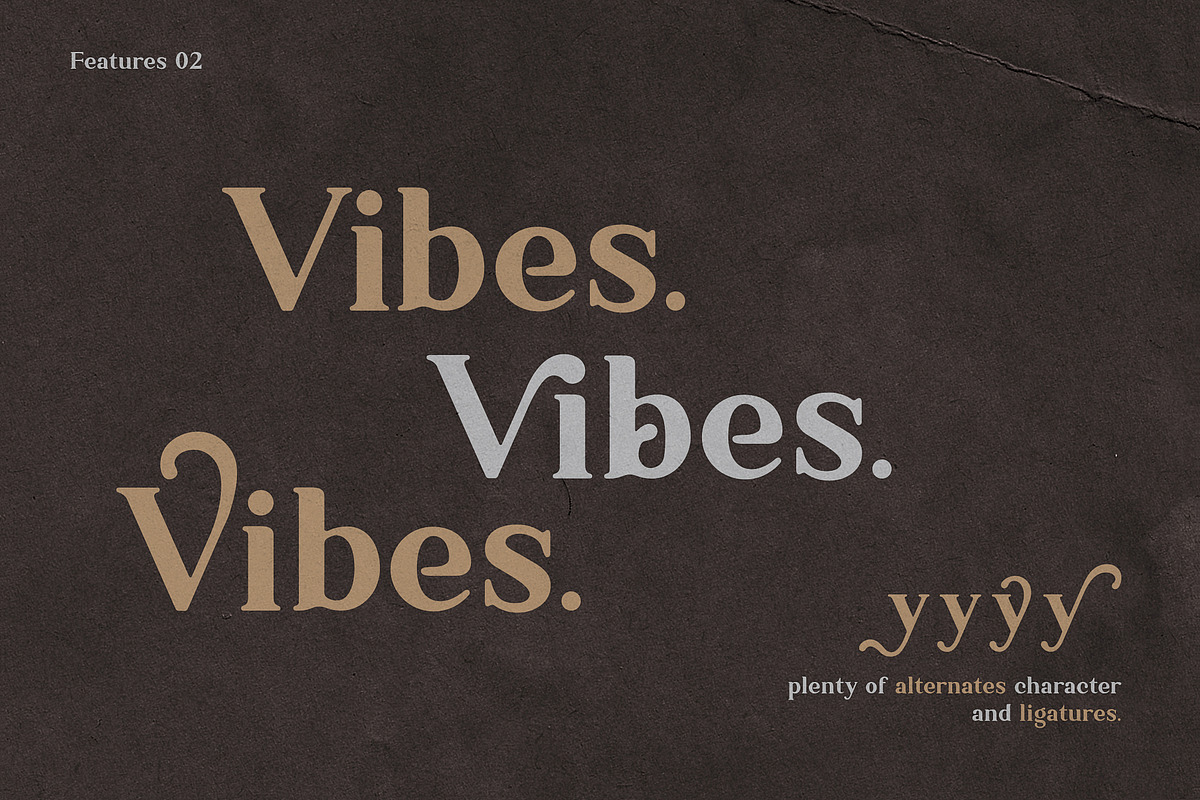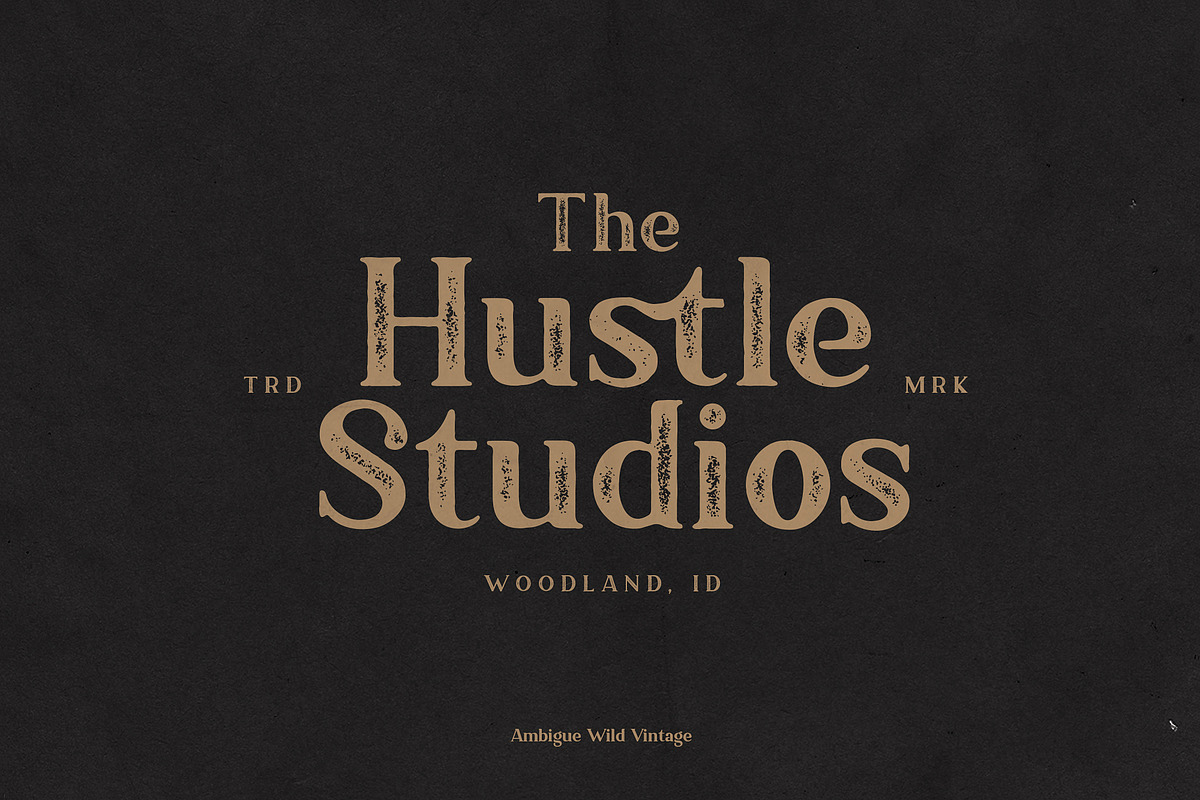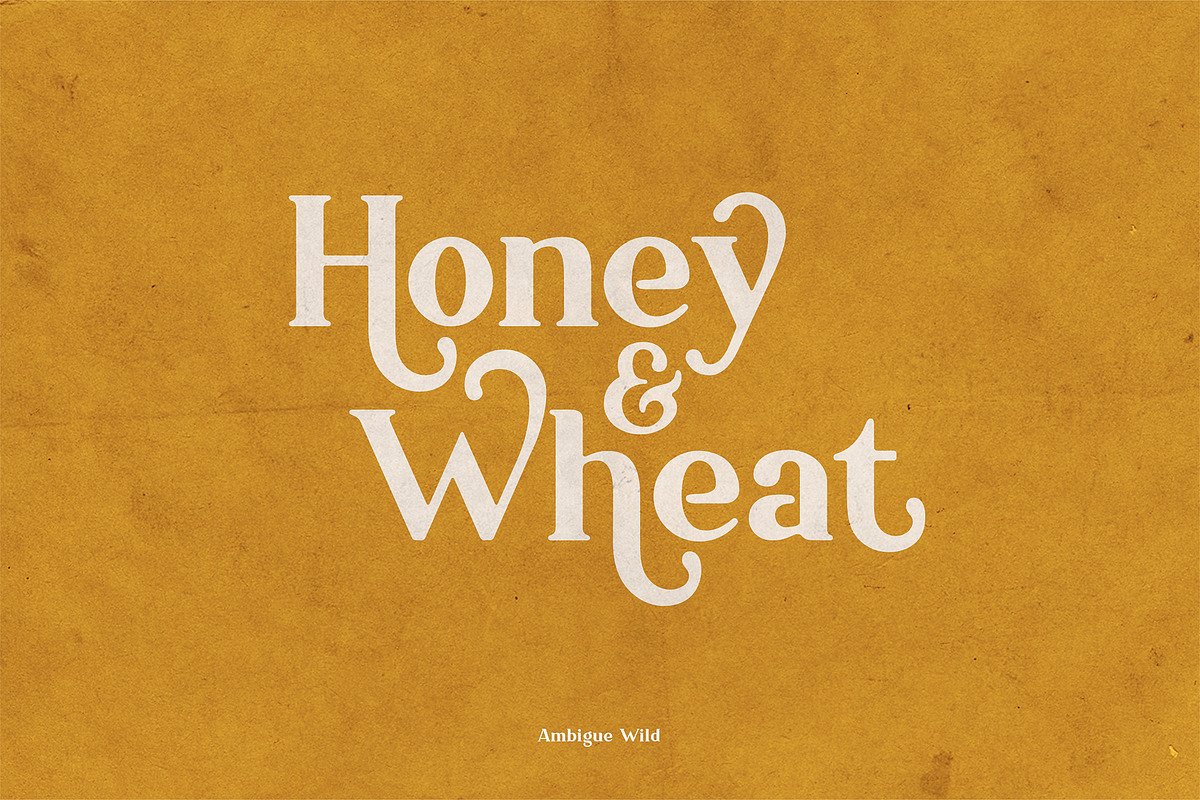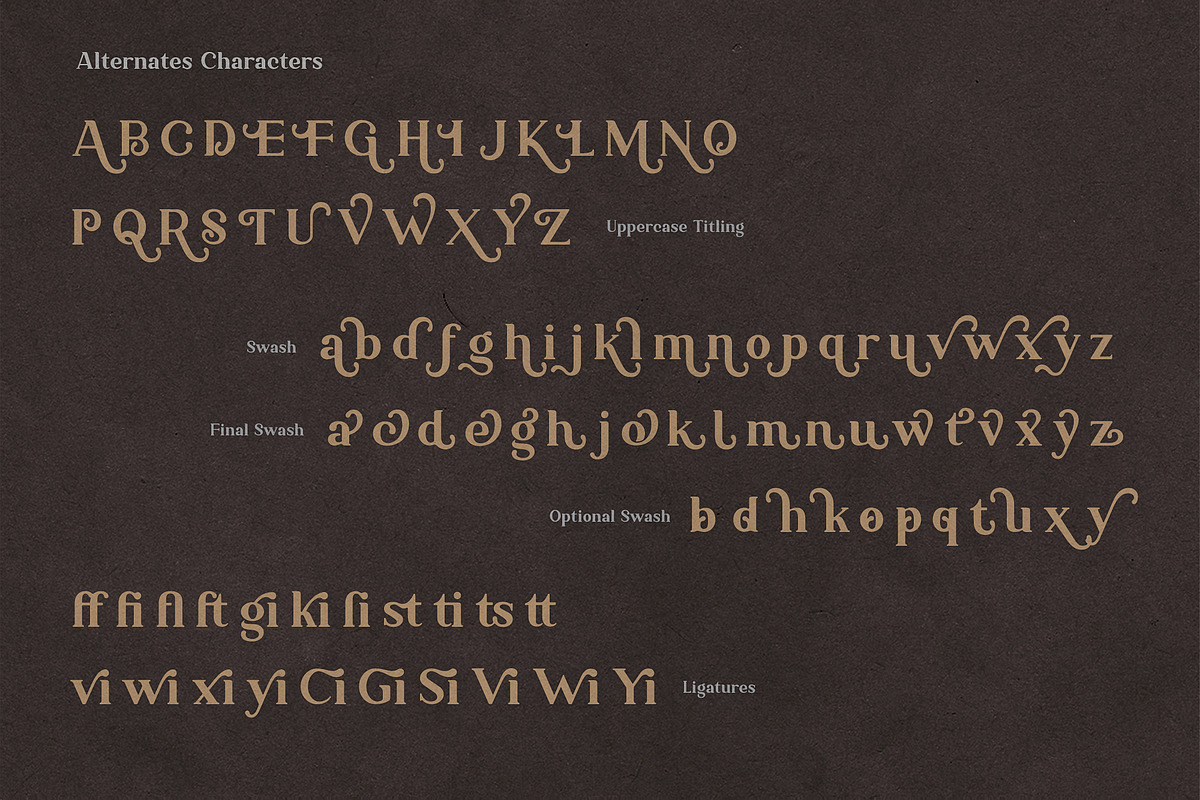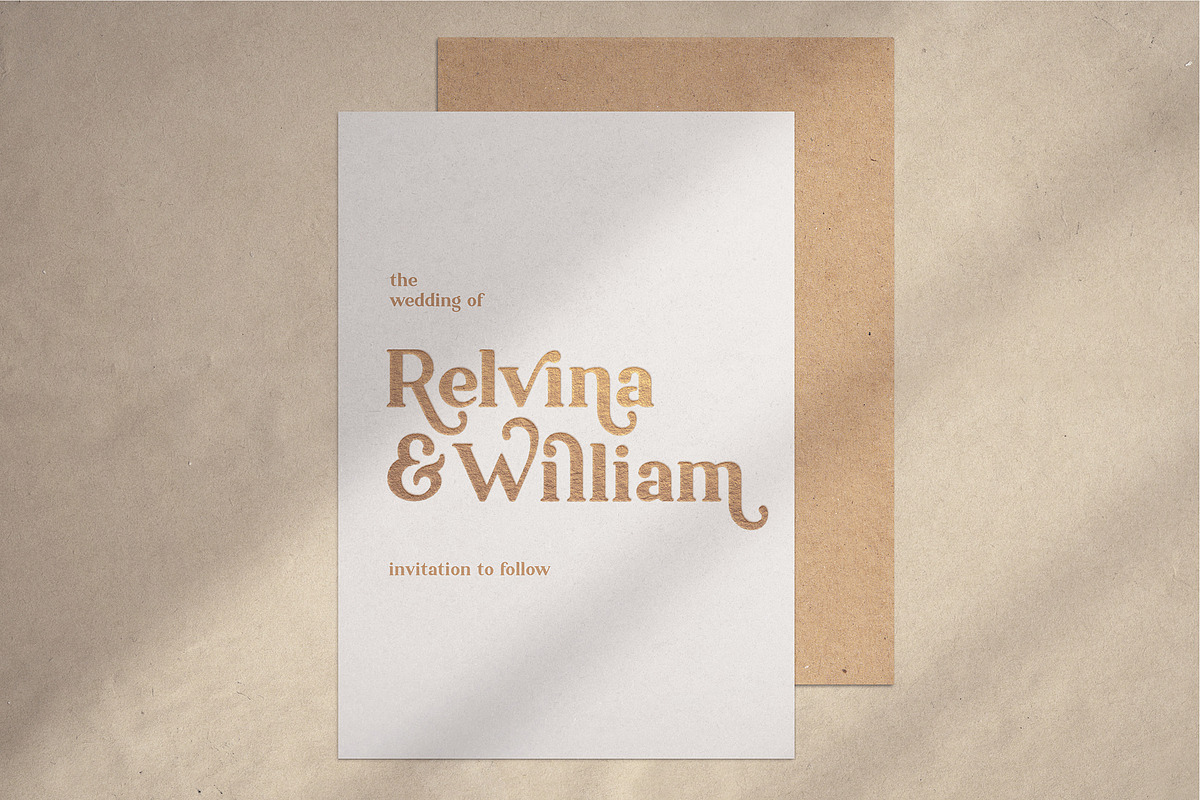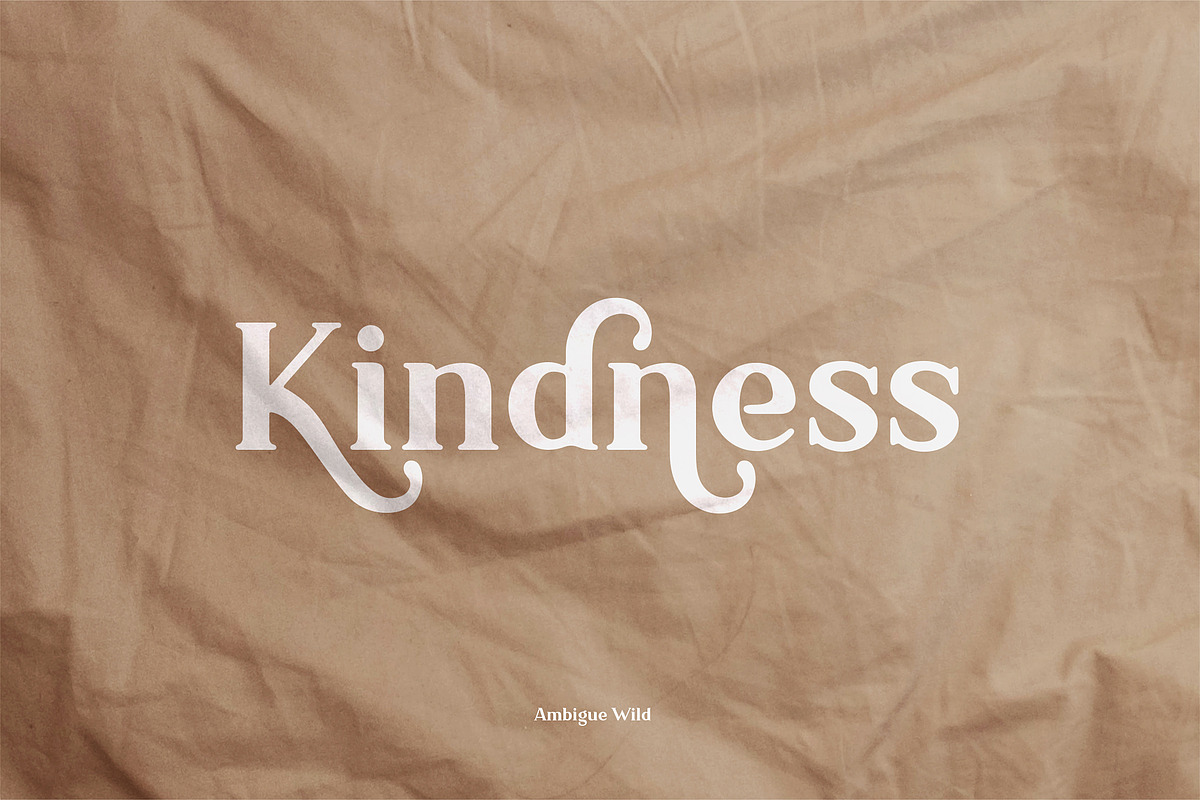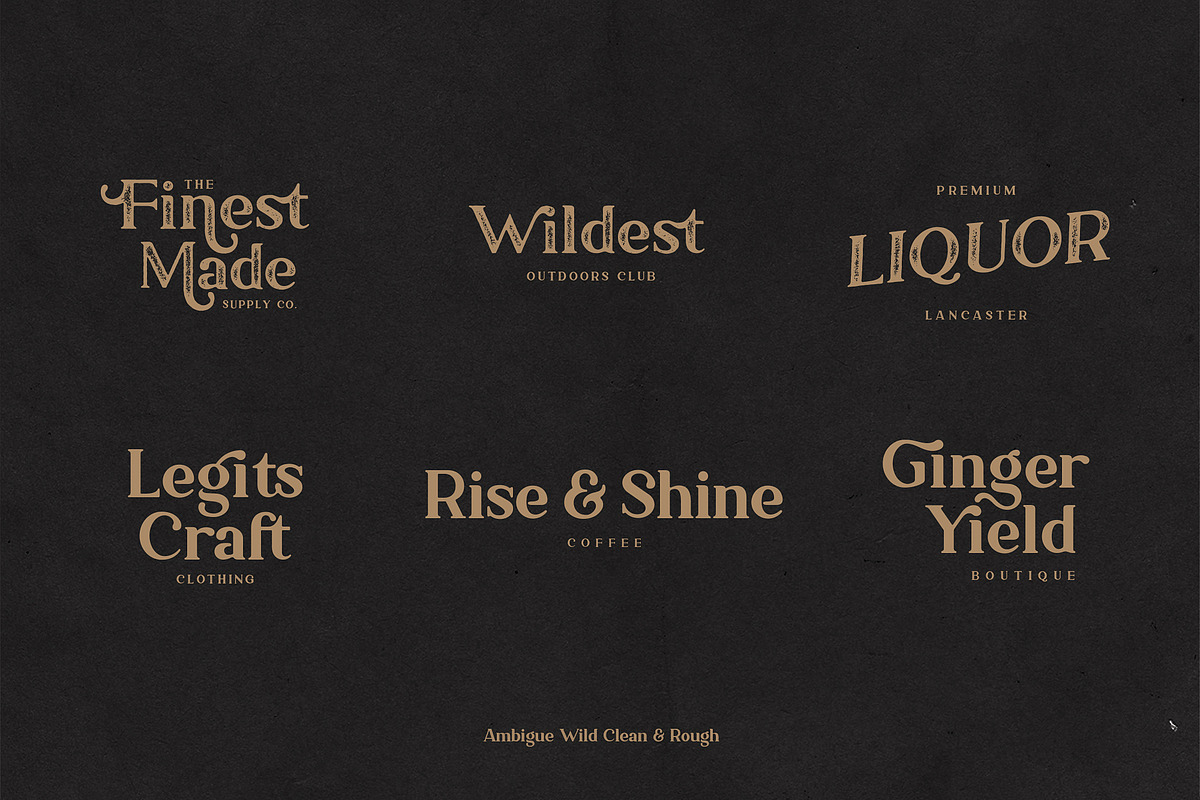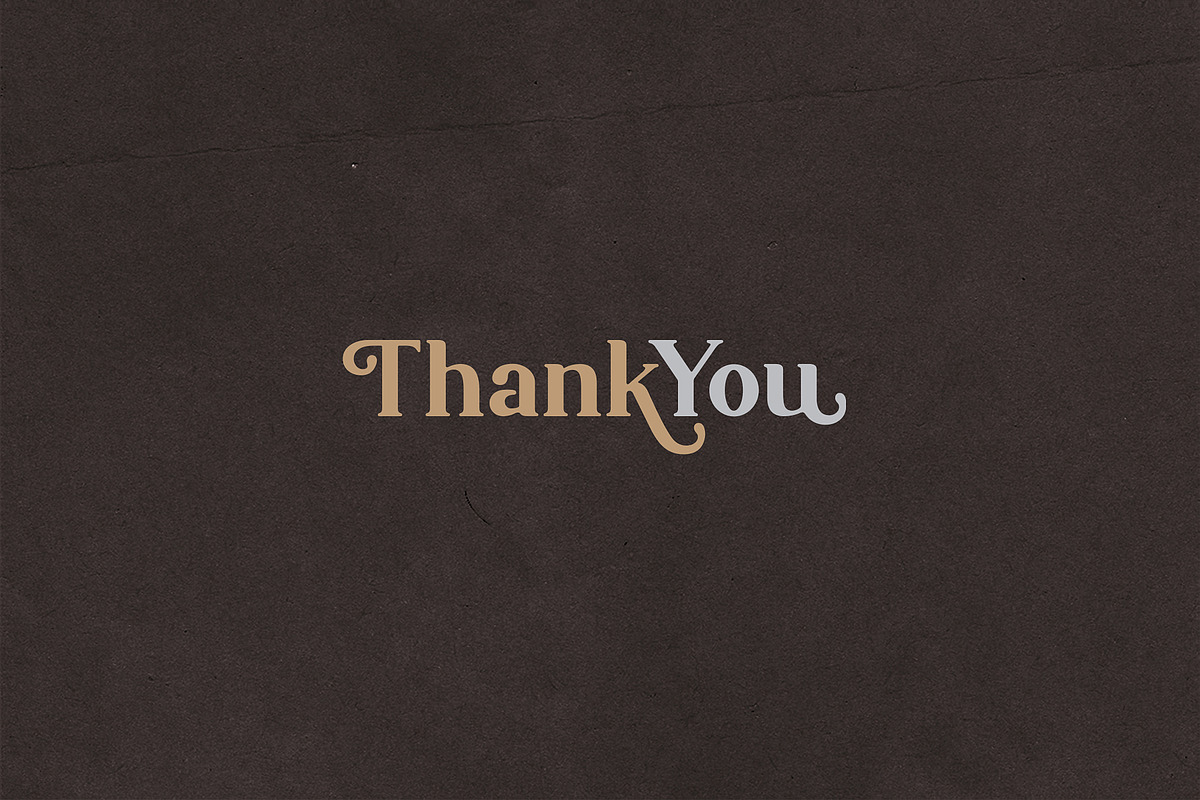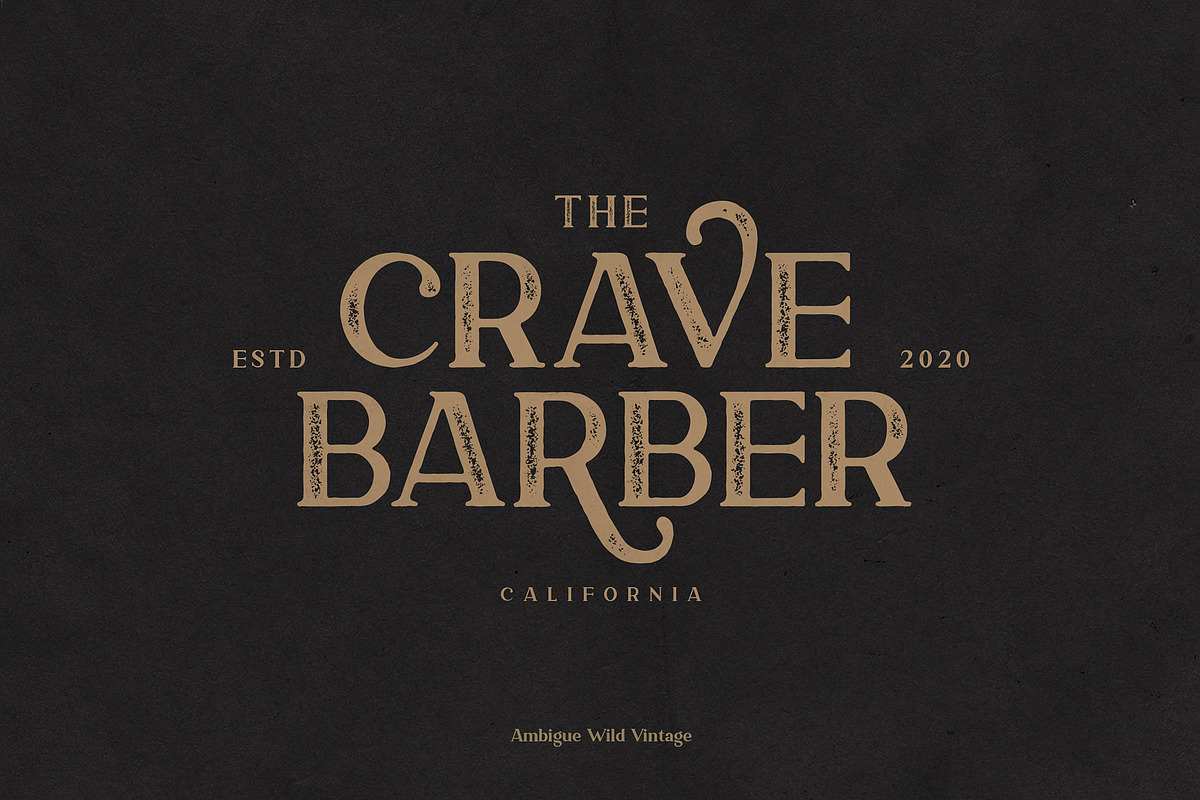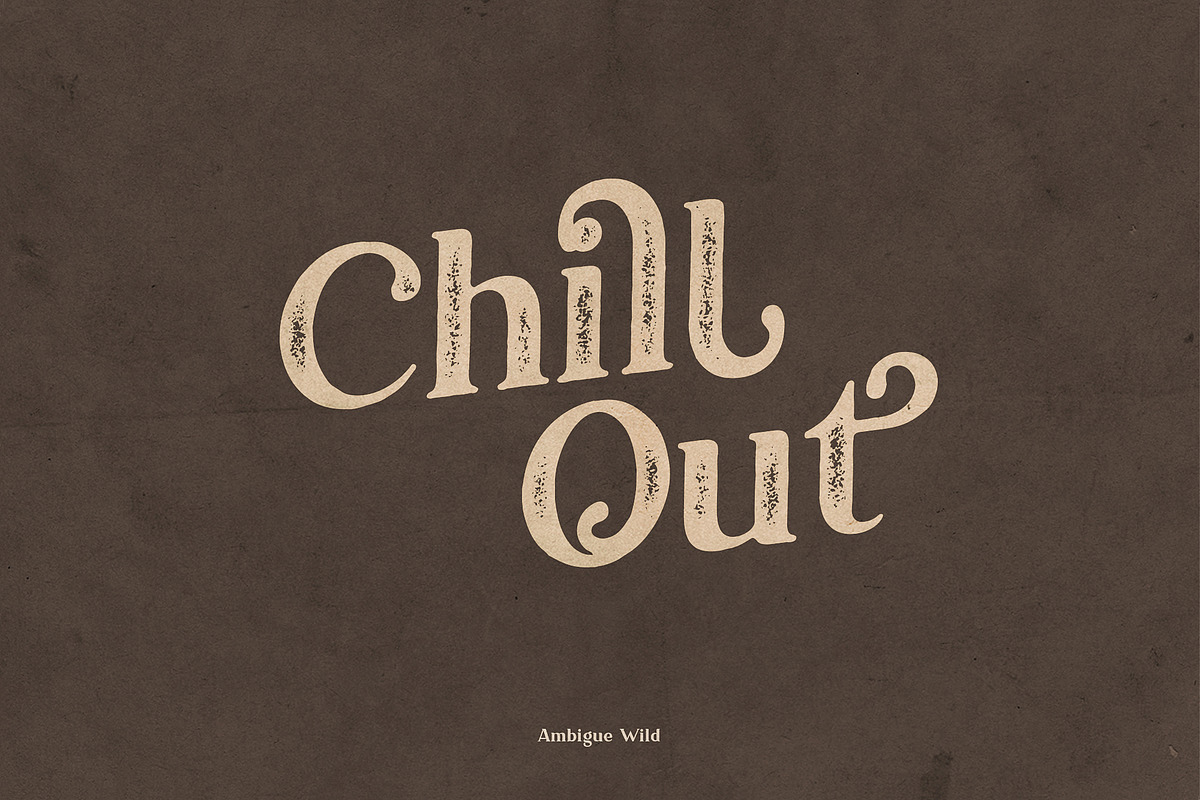
Ambigue Wild Modern x Vintage Serif
Introducing
Ambigue Wild Modern x Vintage Typeface with 2 Font Styles.
Ambigue Wild Typeface is a clean modern serif font colabs with rough vintage typeface.
Ambigue Wild come with 2 Font Styles, Ambigue Wild Clean and Ambigue Wild Rough.
For Clean version uses smooth rounded edges in each character, so this style gives a feel of clean and modern, and for Rough version uses rough edges and inked style, for the texture itself added carefully in each characters, so this version gives a feel of vintage, classic, old. Rough version is another essential of your vintage designs.
Ambigue Wild armored with plenty alternates character, like Titlings, Swashes, Final Swashes, and Optional Swashes. The font have unique ligatures and support with Opentype Features, so that you can mix and match to suit your creativity.
The font is perfect for people looking both essential type designs, clean/modern and vintage/rough type designs.
- Uppercase Character
- Lowercase Character
- Stylistics Character
- Alternates Character
- Titlings
- Final Swashes
- Optional Swashes
- Punctuation & Symbol
- International Language
- Open Type Features